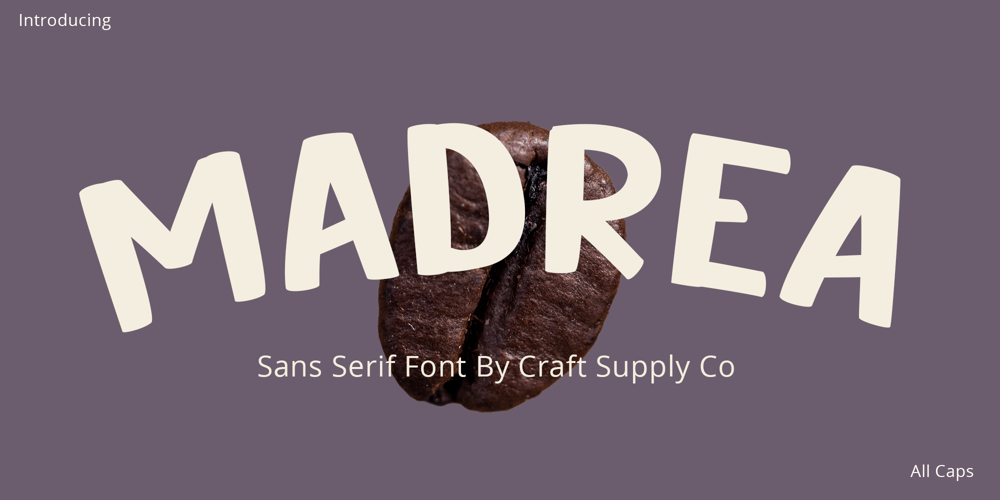
Madrea Font Family was designed by Trio Nazzar Saputra, Wahyu Hadi Yuana and published by Craft Supply Co. Madrea contains 1 styles and family package options. Introducing Madrea – Friendly Sans SerifUnconventional CharmMadrea – Friendly Sans Serif is anything but conventional; it introduces a unique and friendly twist to your designs.Irregular ShapesWhat sets Madrea apart is its irregular shapes, which establish a welcoming and friendly atmosphere. This makes it the perfect choice for designs seeking to break free from formality and monotony.A Breath of Fresh AirIn the realm of sans serif fonts, Madrea is indeed a breath of fresh air. Its non-uniformity and organic feel breathe personality and approachability into your projects.Breaking FormalityMadrea excels at breaking the chains of formality. It’s an ideal choice for design projects that demand a friendly and informal touch, effortlessly transforming the mundane into something captivating.In ConclusionIn summary, Madrea – Friendly Sans Serif is your gateway to a non-uniform, friendly design experience. Its irregular shapes infuse character, warmth, and a refreshing departure from conventional design, ensuring that your creations are brimming with life and far from monotonous.